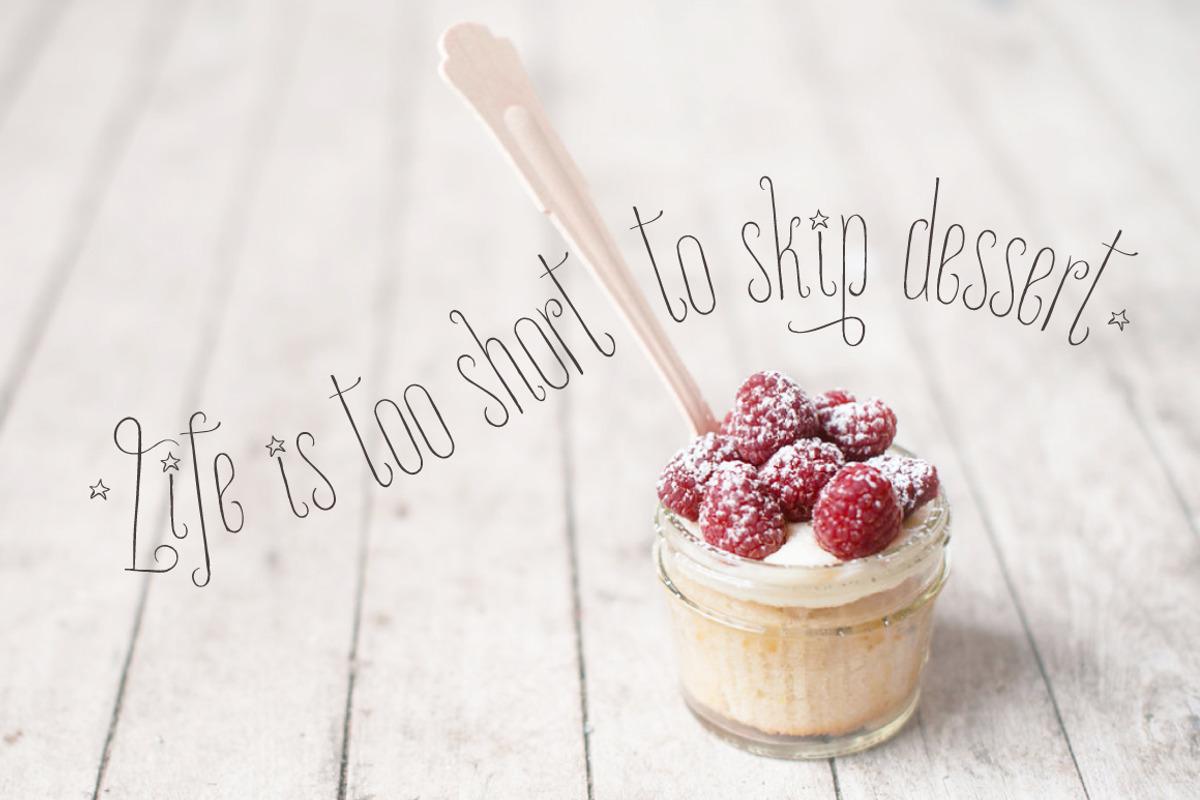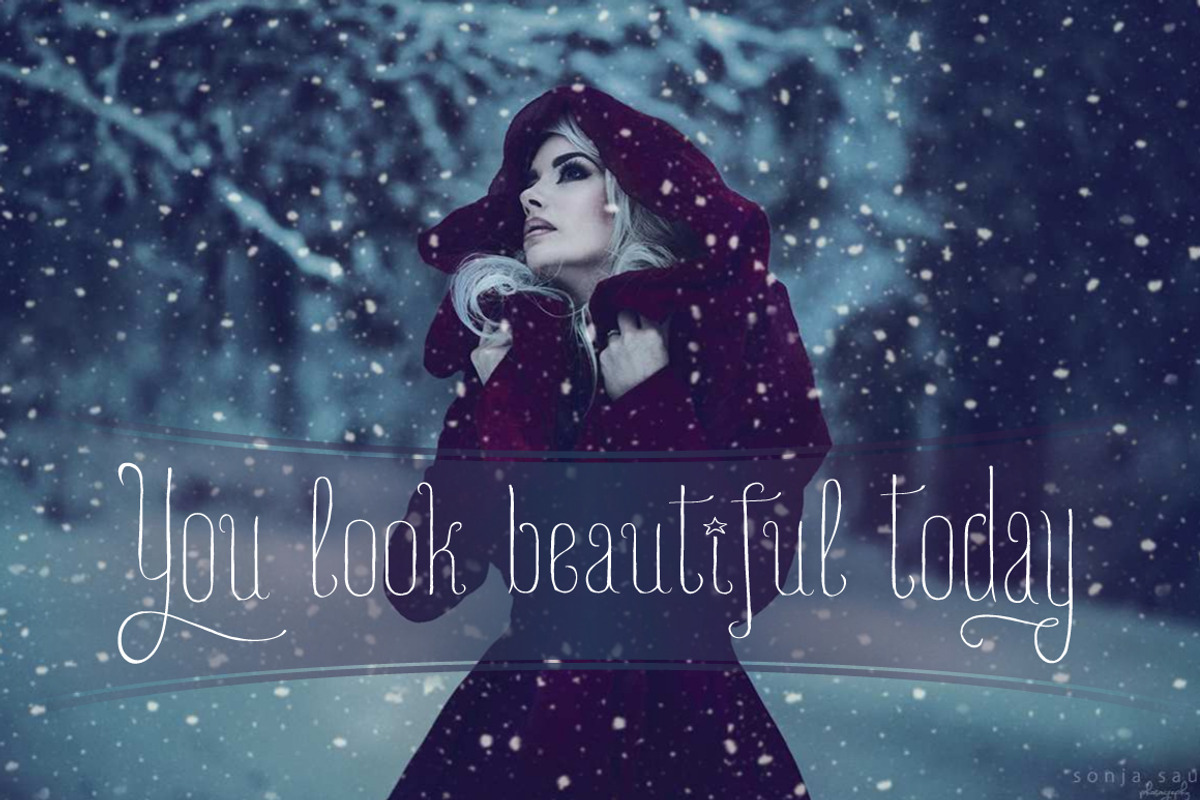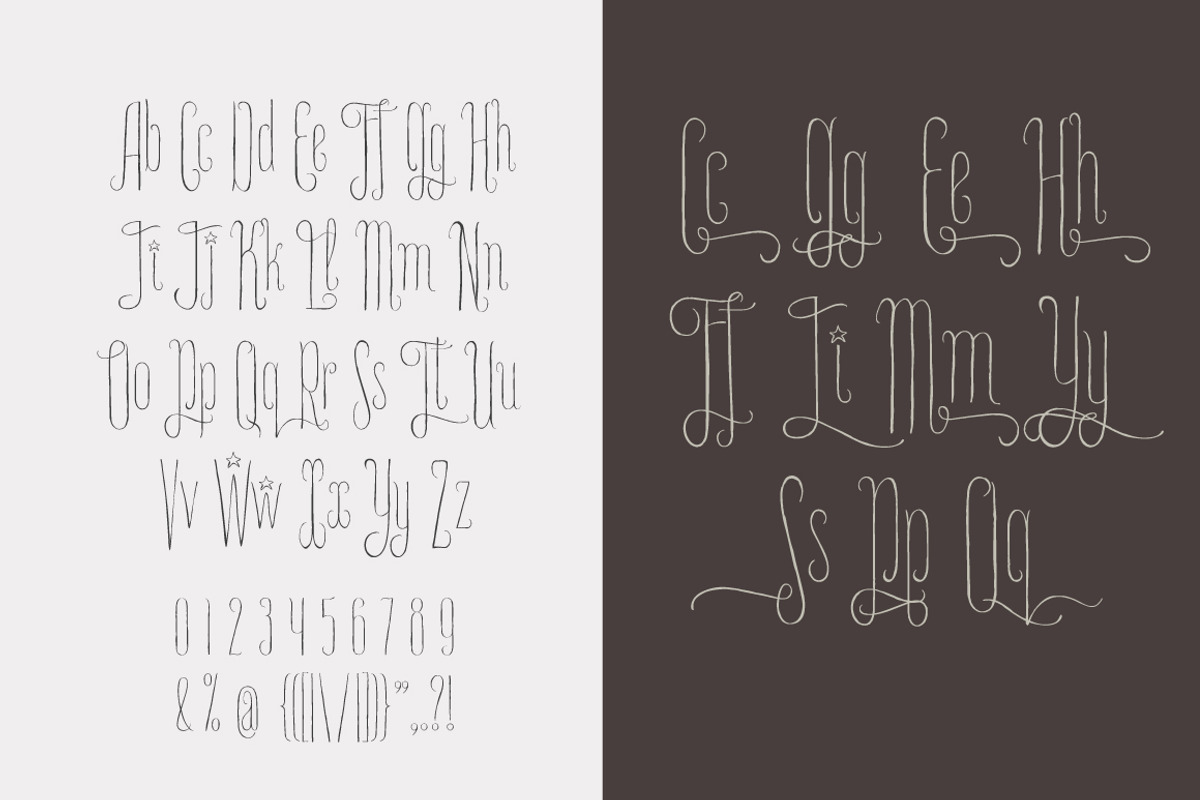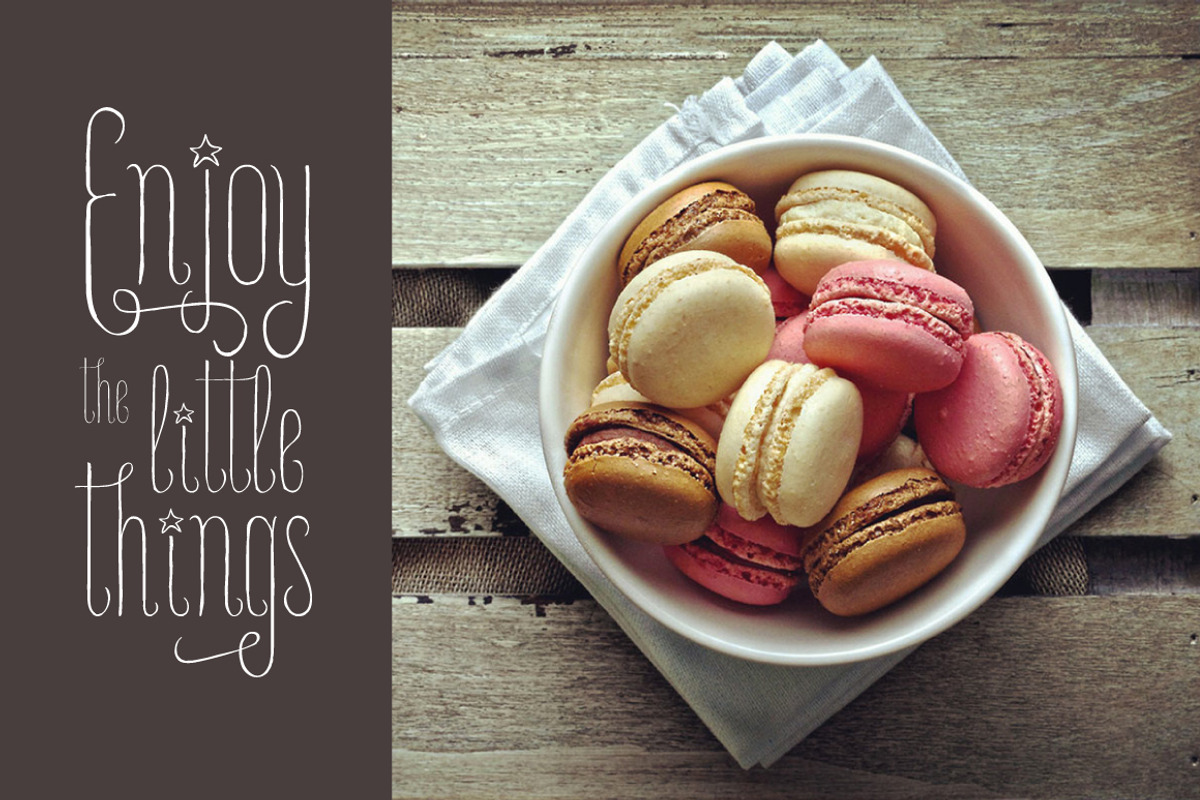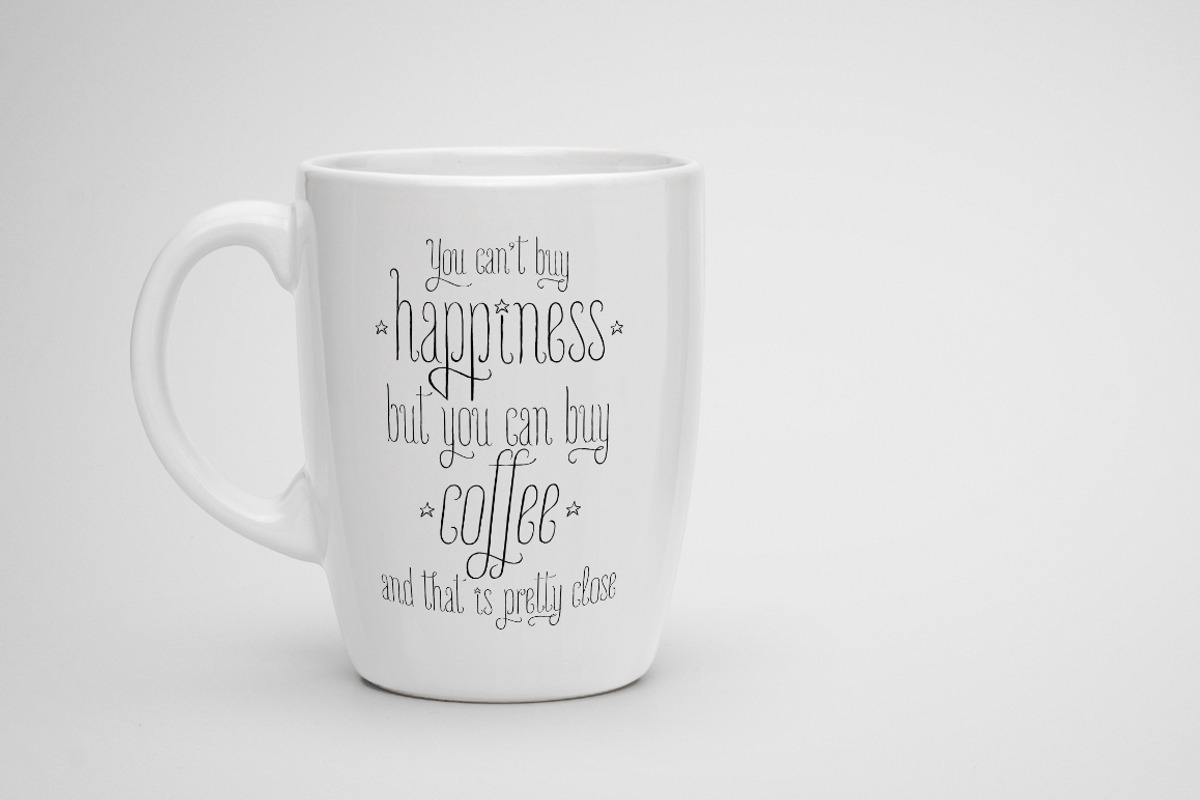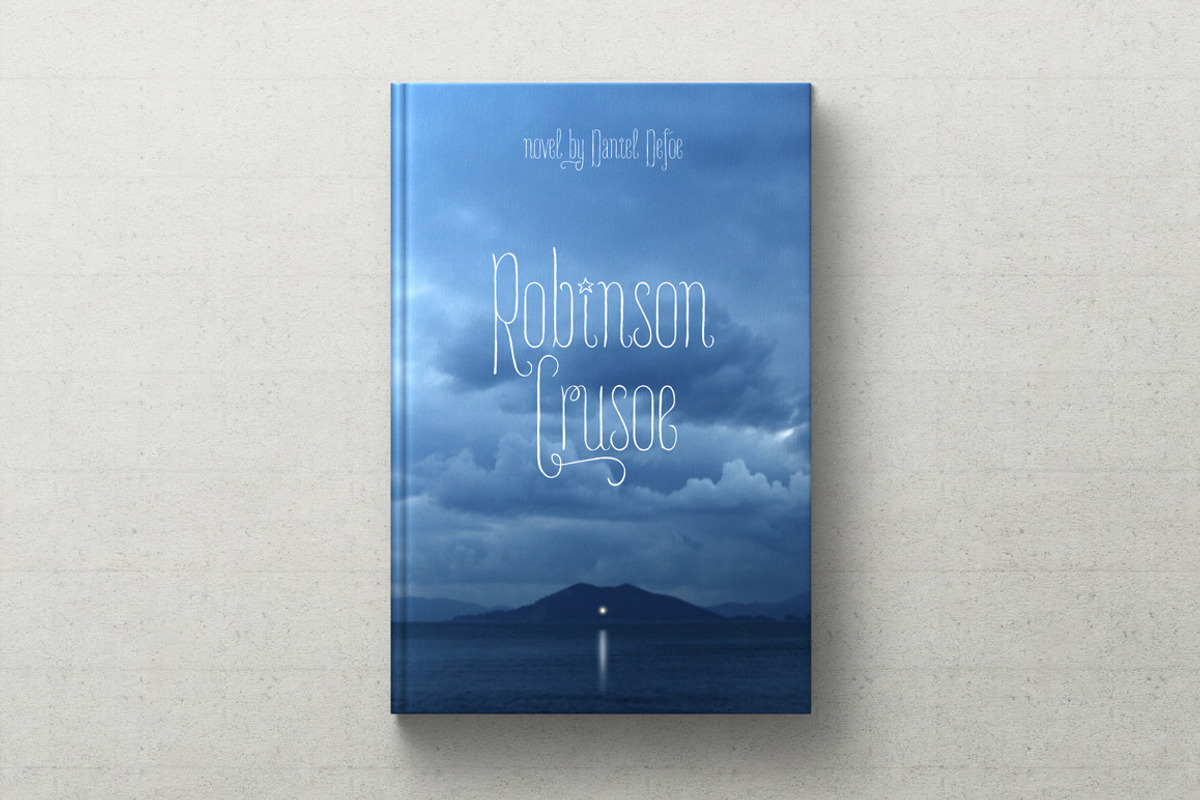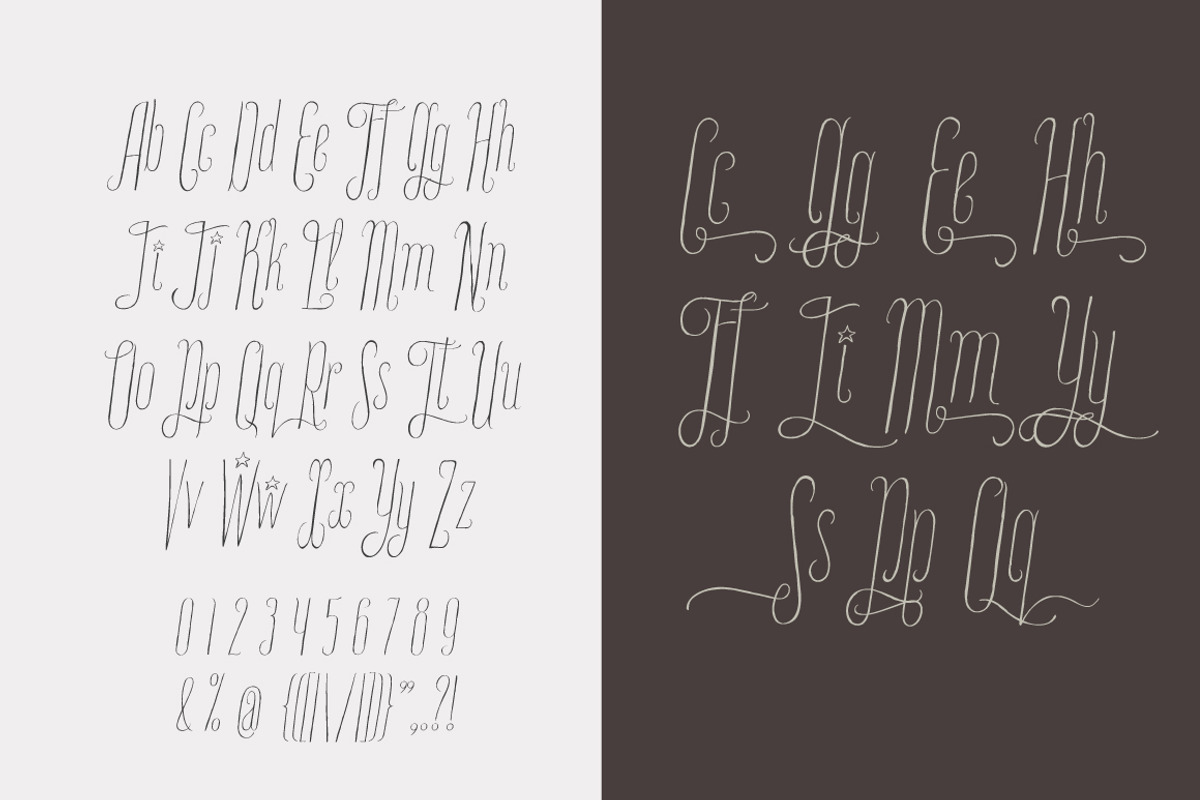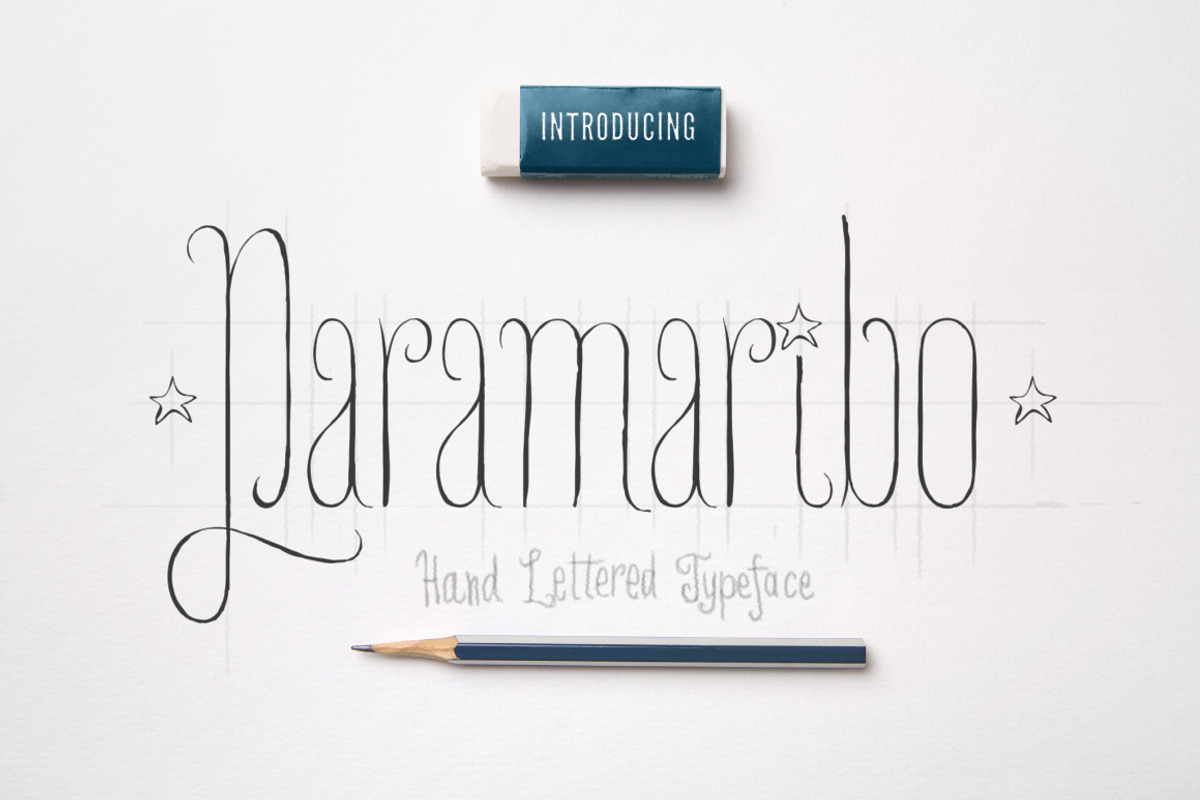
Paramaribo Font Family
Paramaribo Font Family by Fontop is a font selected for branding, posters, packaging, typography.
- Paramaribo family includes two fonts with stylistic substitutions and 28 ligatures.
- PARAMARIBO Light Condensed
- PARAMARIBO Light Condensed Italic
Paramaribo Font Family by Fontop fits naturally into Branding, posters, packaging, typography.